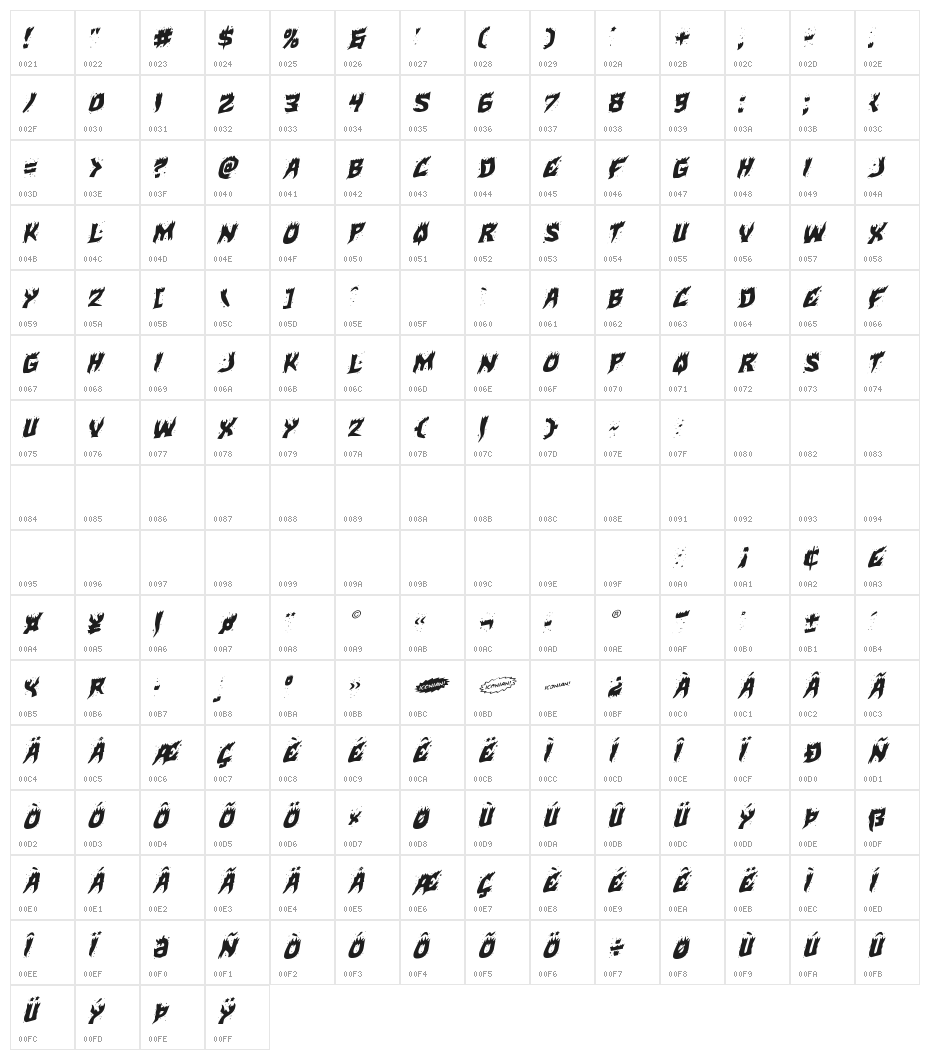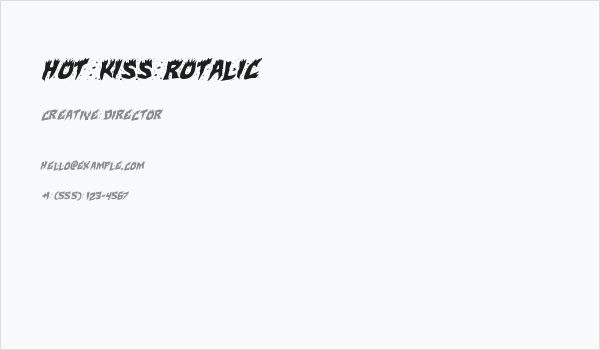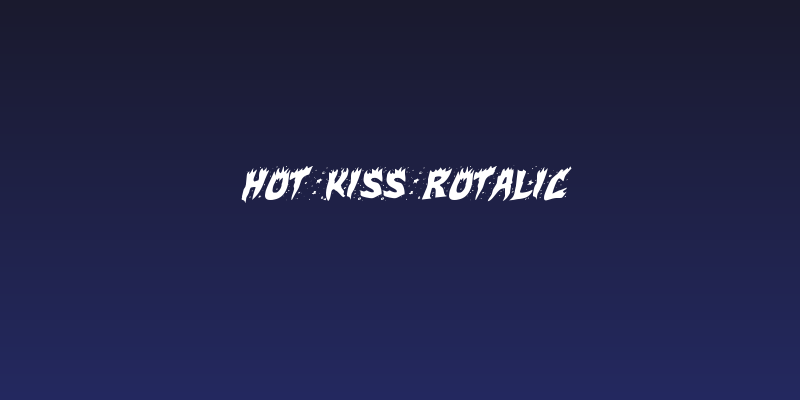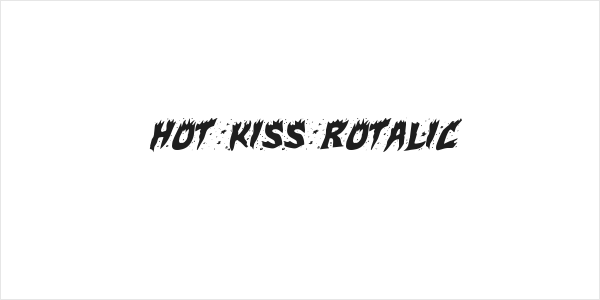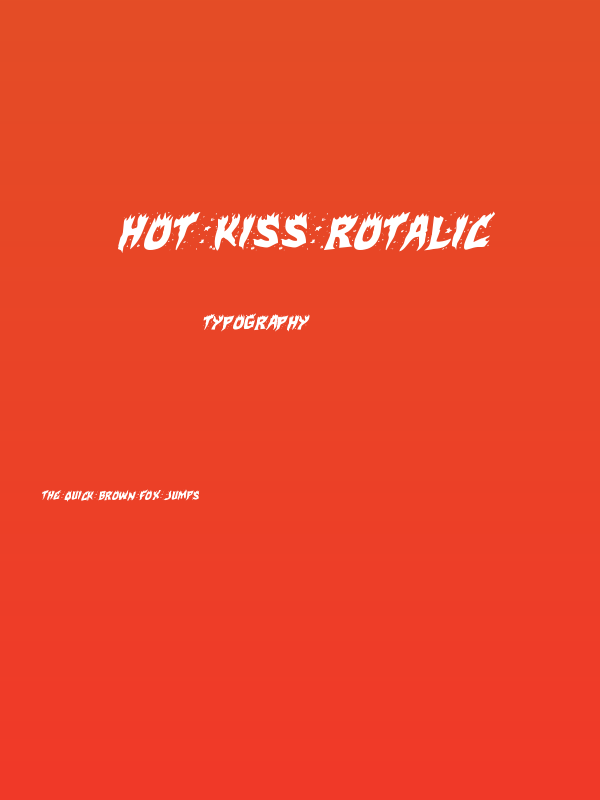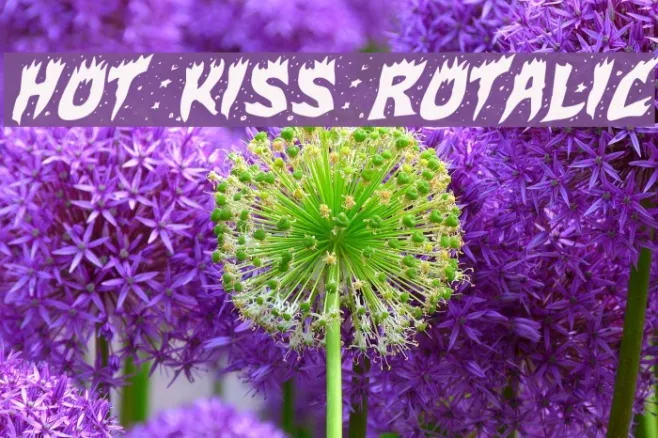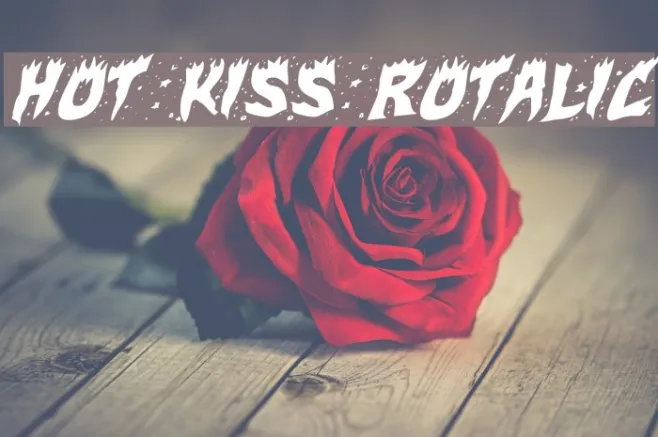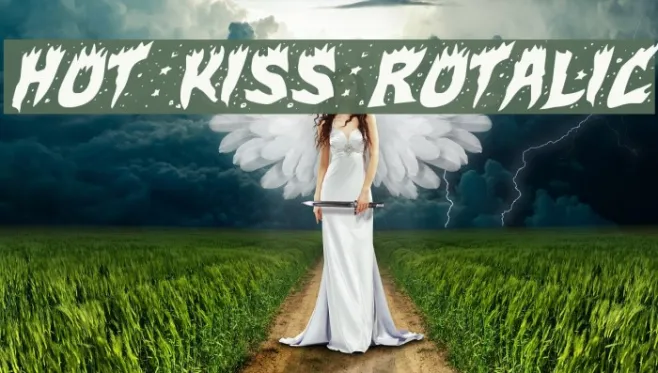
Hot Kiss Rotalic Font
Hot Kiss Rotalic Description
This font features a bold and dynamic style with jagged, flame-like edges that give it an intense and energetic appearance. The characters are heavily stylized, with sharp angles and a sense of movement, making it ideal for eye-catching designs. The uppercase and lowercase letters maintain a consistent theme, while the numbers and special characters are equally bold and expressive. This font's unique design is perfect for projects that require a dramatic and impactful visual presence.
| Proposed Projects | Ideal for music album covers, event posters, video game titles, and edgy branding projects. |